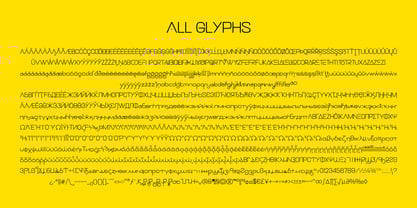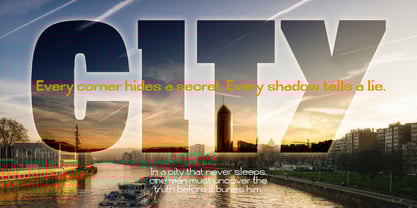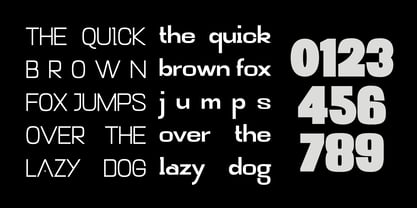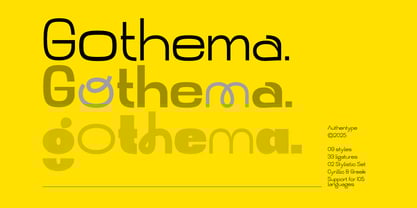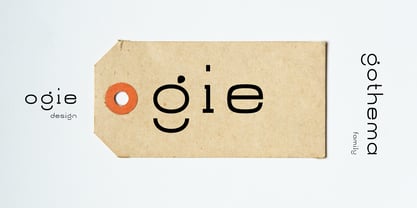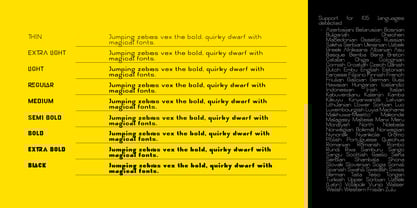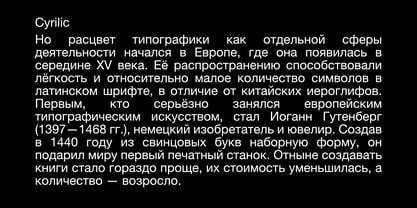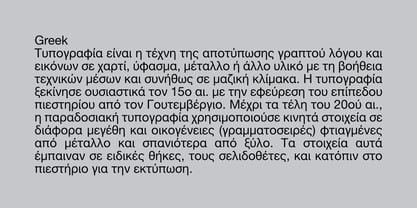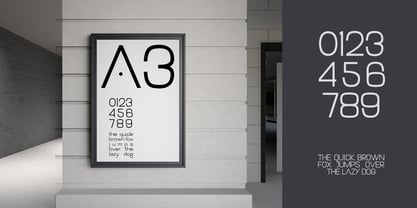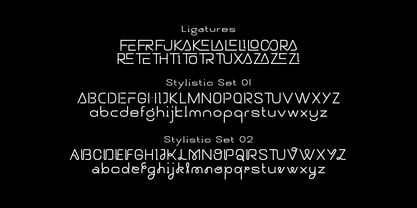
Gothema
Shape Your Brand with Gothema – A Modern Geometric Sans
Gothema is a clean, modern geometric sans-serif font family designed to deliver clarity, elegance, and a bold visual identity. With that in mind, its refined structure and complete weight range make it perfect for high-impact results across both digital and print platforms.
PRECISION MEETS FLEXIBILITY
Each letterform is carefully constructed to balance geometric form with natural legibility. As a result, this fusion of logic and beauty makes Gothema ideal for projects that require both structure and style.